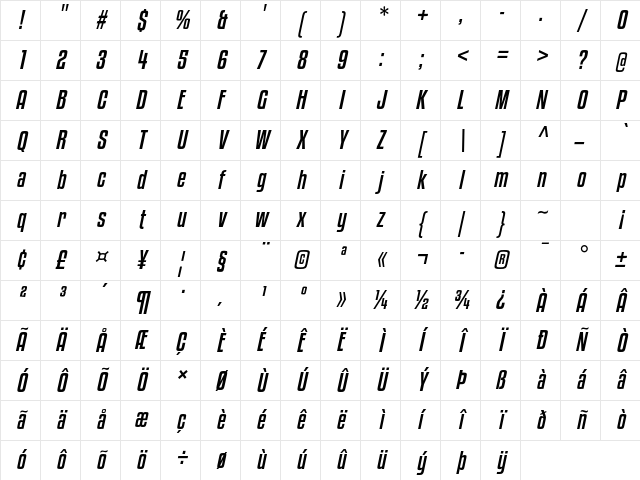
Complete Kenyan Coffee Italic glyph index. Displaying only characters natively supported by Kenyan Coffee Italic font.
Kenyan Coffee is a composed and adaptable typeface that performs quietly and consistently across a wide range of design contexts. The slanted form adds forward momentum and visual energy.
Pro Tip: Use Kenyan Coffee for emphasis, pull quotes, and subheadings where its slanted energy can add rhythm to the layout.